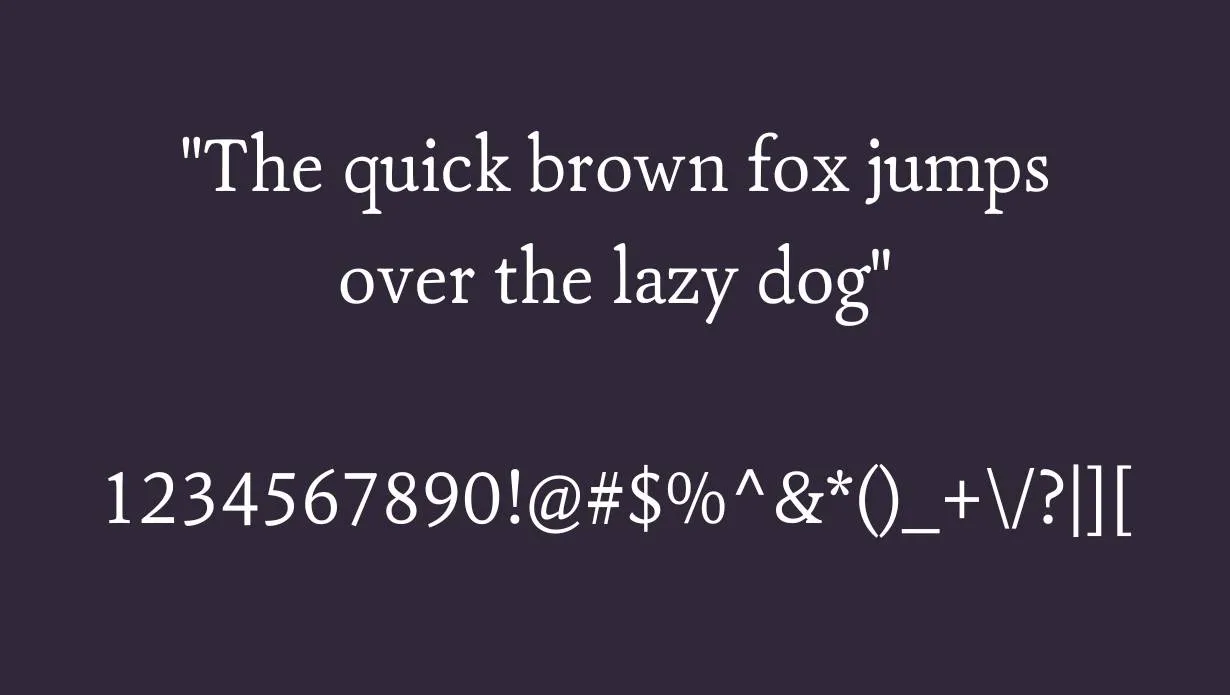
The Syntesia font is akin to a musical tune expressed through letters. Its smooth and contemporary design makes it ideal for creating stylish music event posters, crafting album covers, or infusing a sense of rhythm into your branding.
This font has a medium weight and standard width, ensuring your words resonate with a contemporary vibe. Imagine using the Syntesia font for a music festival banner, turning your text into a visual symphony.
| Name | Syntesia Font |
| Designer | Cahya Sofyan |